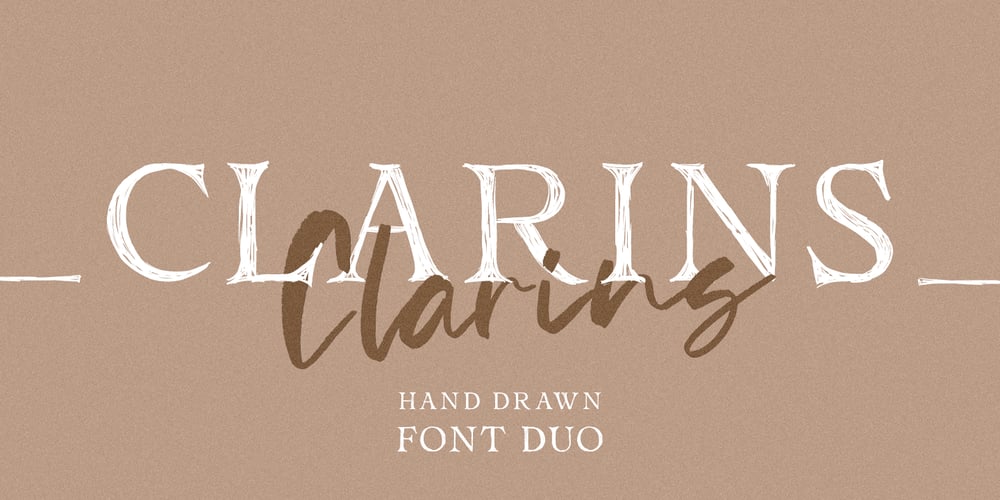
Clarins Font Family was designed by Pavel Larin and published by Larin Type Co. Clarins contains 2 styles and family package options. Clarins This is a beautiful font duo that includes a Serif and a Script font. These fonts are written by hand and perfectly match each other, serif leaves streaks from an uneven stroke and looks a little careless and attracts attention, It will fit perfectly into a project where this inaccuracy is necessary. The script written with a brush is perfect for any project and will decorate it, as well as it includes alternates for lowercase.Enjoy using!